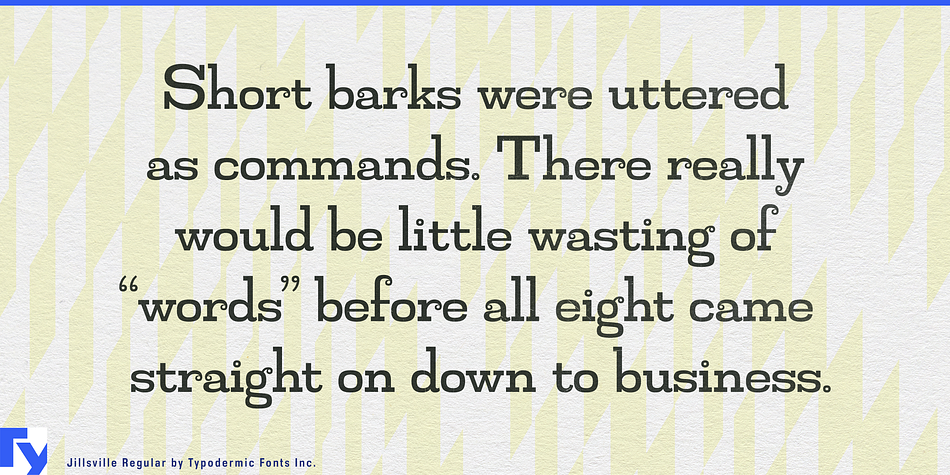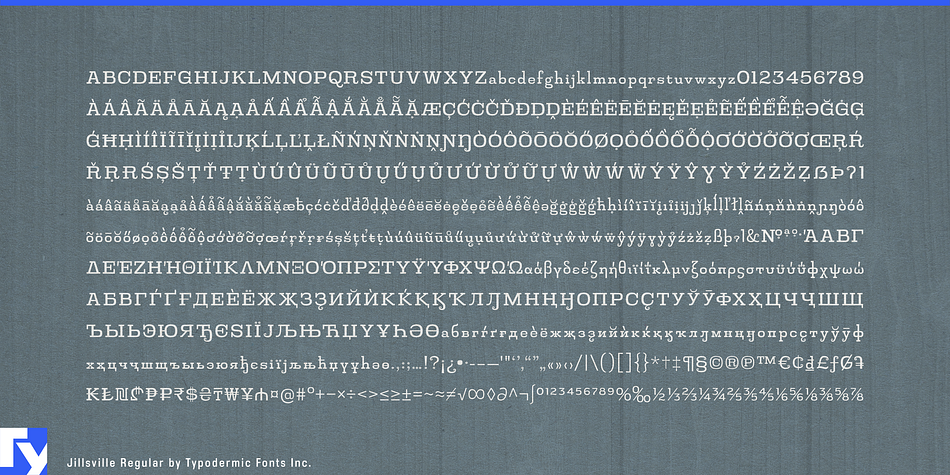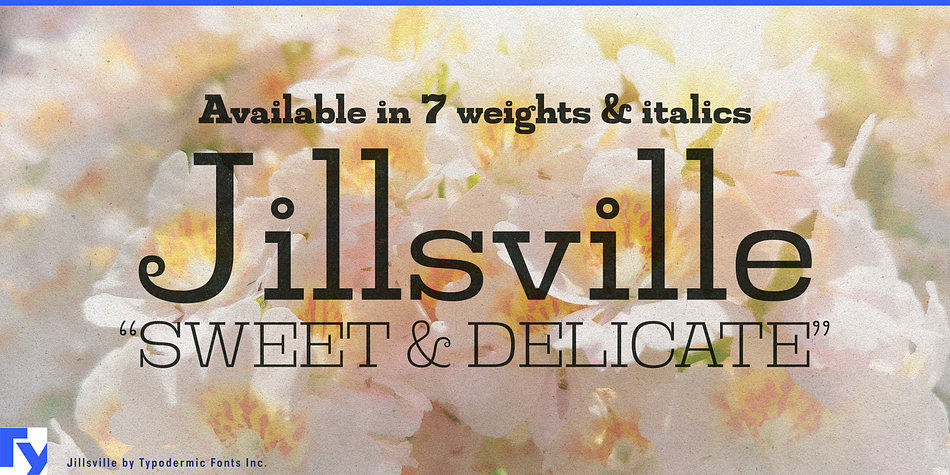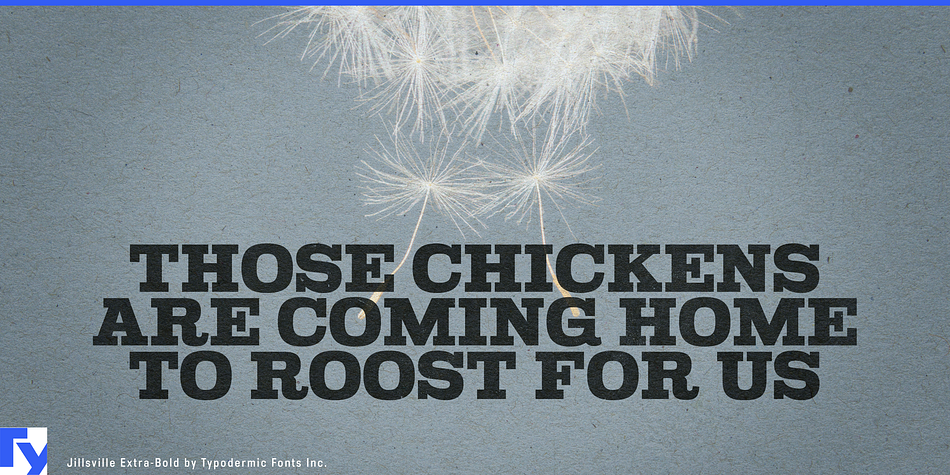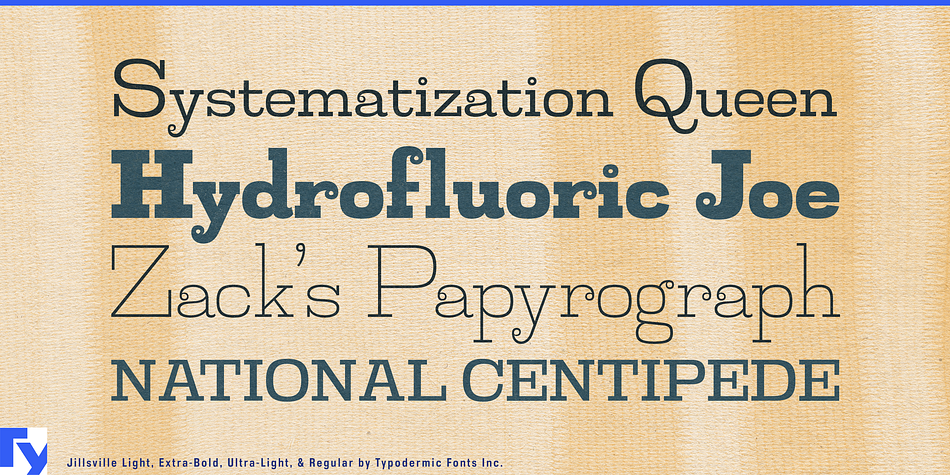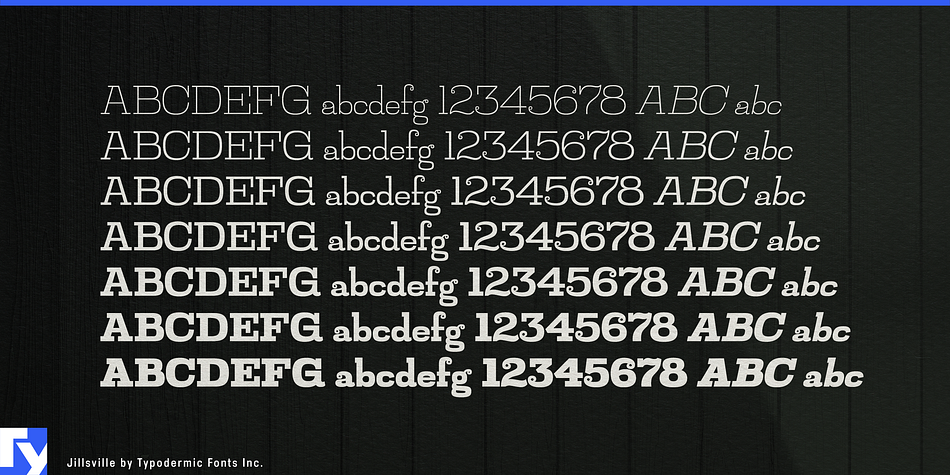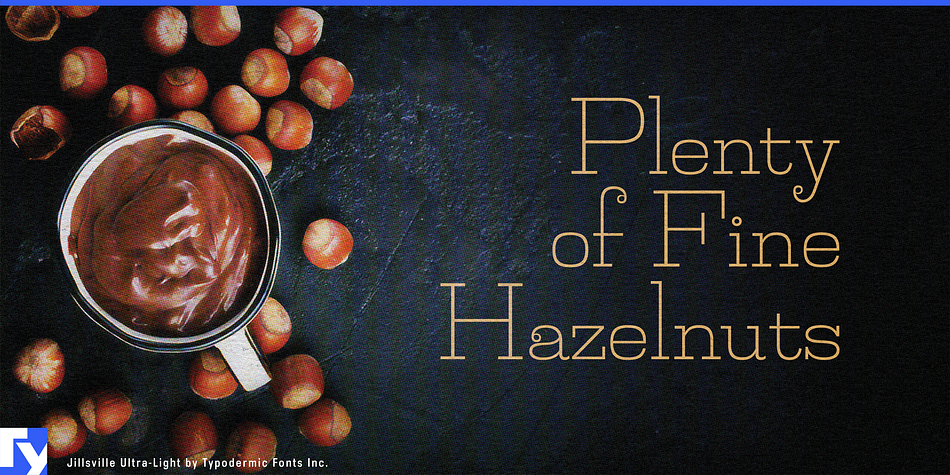
Jillsville is a serif and slab serif font family. This typeface has fourteen styles and was published by Typodermic Fonts Inc.
Jillsville is a sweet, delicate slab-serif typeface with attractive curls. Mathematical symbols, fractions, numeric ordinals and monetary symbols are in good supply. Cyrillic, Greek and almost all Latin-based languages are supported.
Jillsville is available in seven weights and italics.